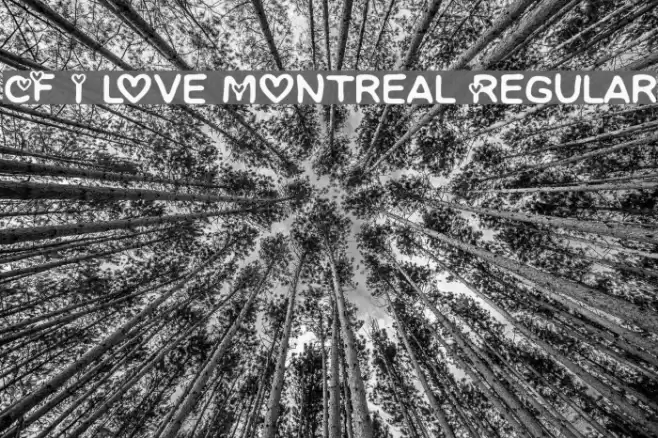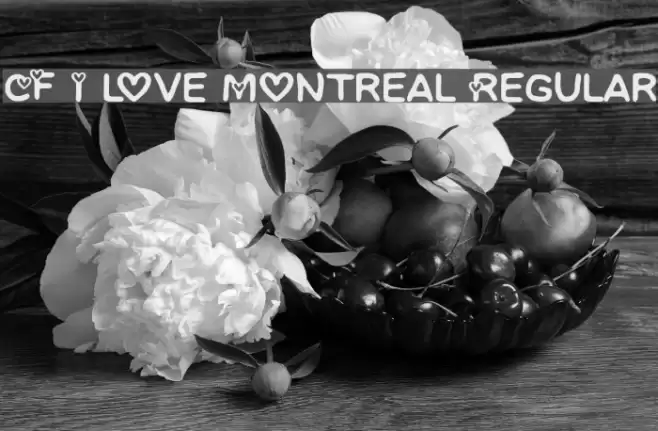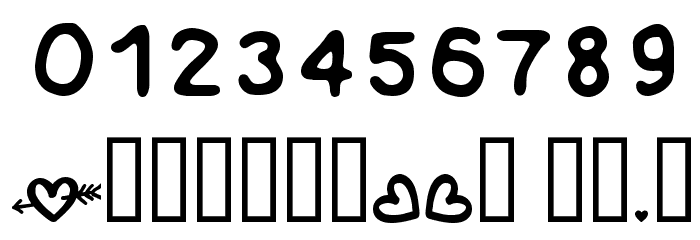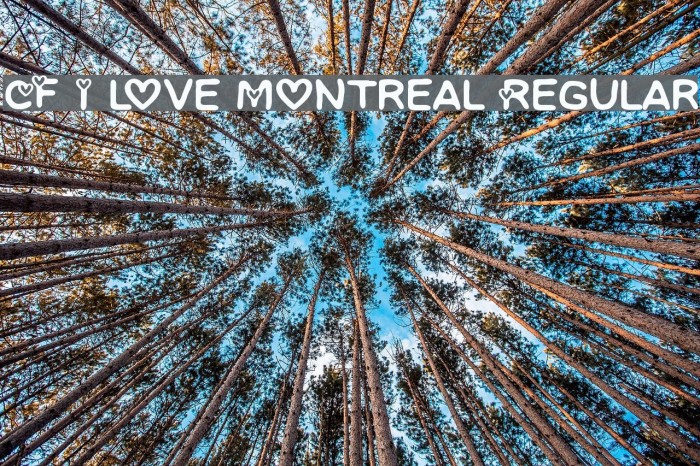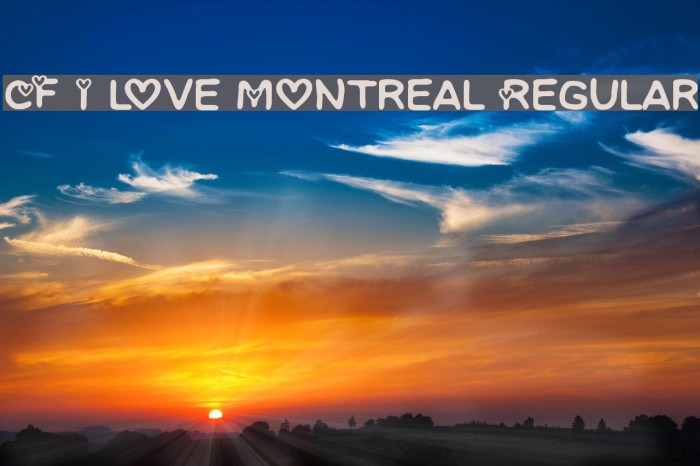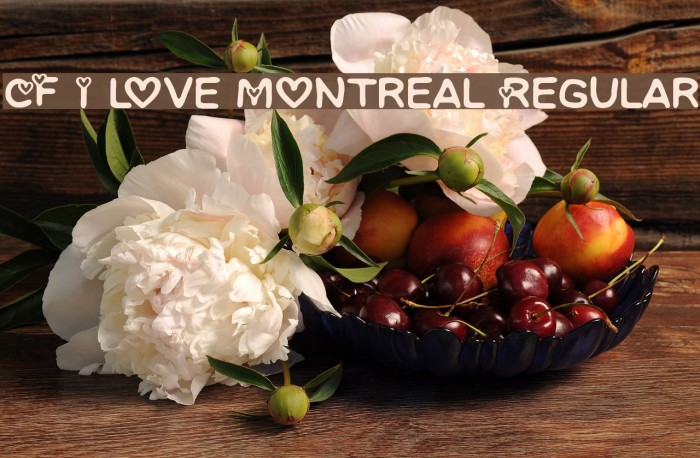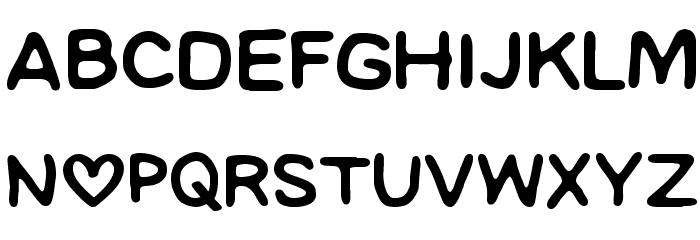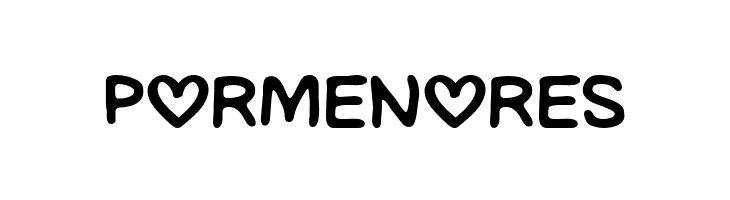
CF I love Montreal Regular Font
CF I love Montreal Regular Description
This playful and decorative font features heart motifs integrated into the design of each character, creating a whimsical and romantic feel. The uppercase and lowercase letters are bold and rounded, with hearts replacing certain elements, such as the dot on the 'i' or the crossbar of the 't'. The numbers and special characters also incorporate heart shapes, enhancing the cohesive theme. The font's style is consistent throughout, with a uniform stroke width that maintains readability while adding a touch of charm and uniqueness.
A playful, heart-themed decorative font with bold, rounded characters from Uncategorized fonts.
- Proposed Projects: Ideal for Valentine's Day cards, wedding invitations, romantic event posters, and playful branding projects.
- Use Case: Headlines, Logos, Invitations